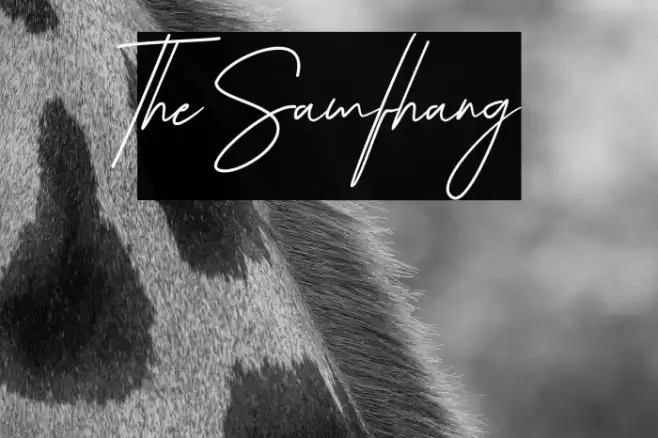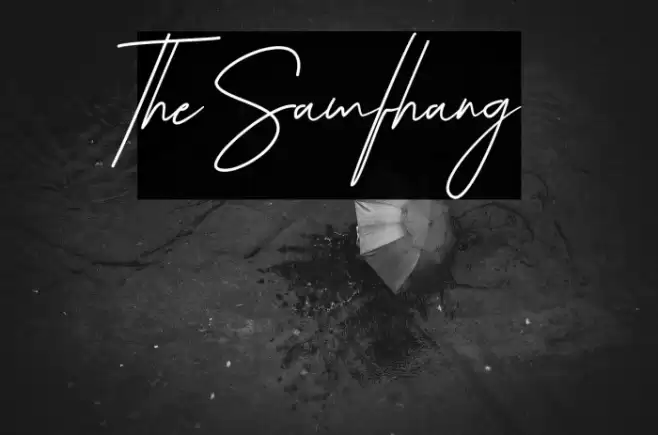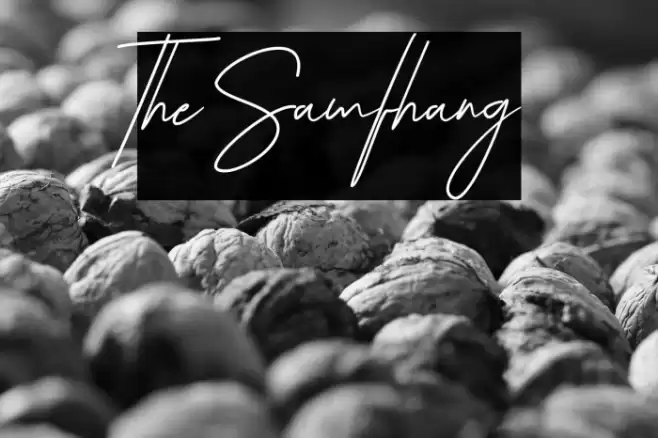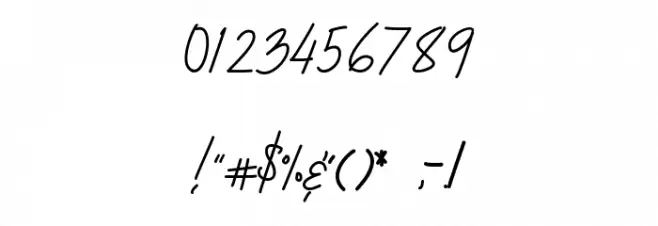
This font features a dynamic and fluid script style, characterized by its elegant and flowing letterforms. The uppercase letters are tall and slightly slanted, giving a sense of motion and sophistication. The lowercase letters maintain a consistent style, with smooth curves and a handwritten feel. The numerals are clear and maintain the same flowing aesthetic, making them easily readable. Special characters are integrated seamlessly, enhancing the font's versatility. This font's overall appearance is both artistic and modern, suitable for creative and expressive design projects.
A dynamic, fluid script font with elegant, flowing letterforms from Regular fonts.
- Proposed Projects: Ideal for wedding invitations, personal branding, artistic posters, and expressive logos.
- Overall Style: Modern, Artistic
- Use Case: Logos, Invitations, Artistic Projects